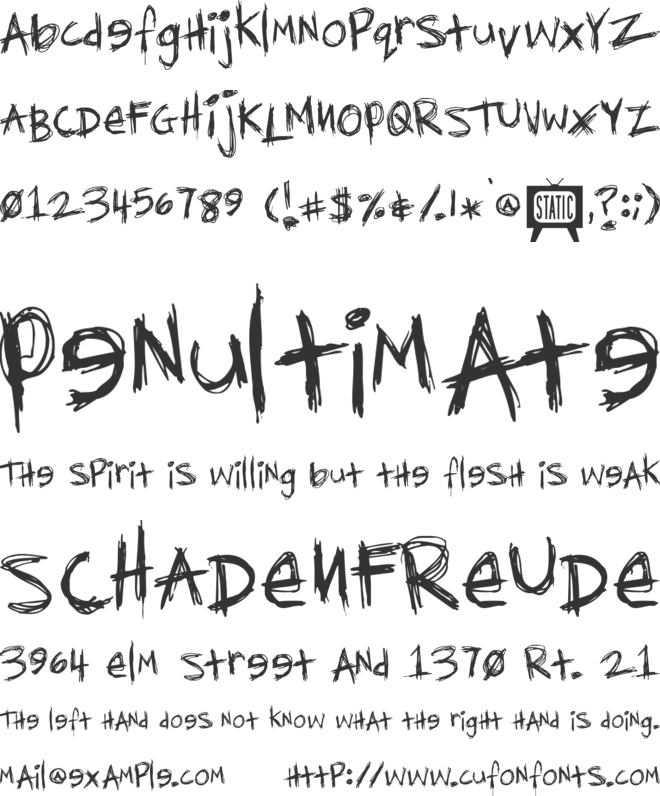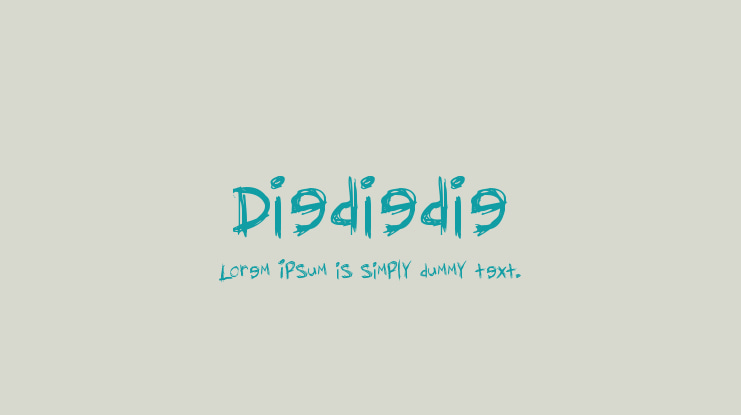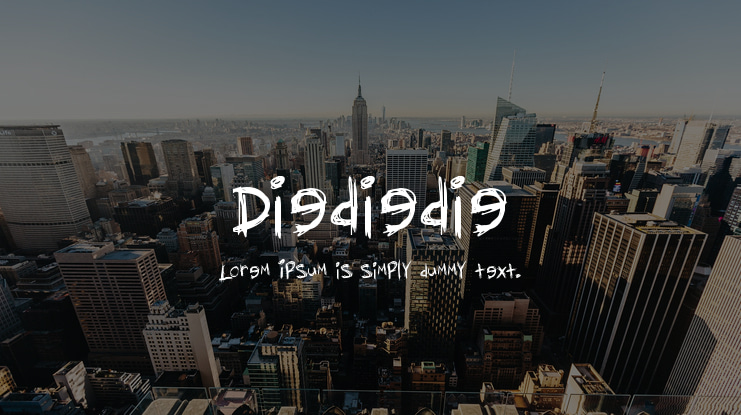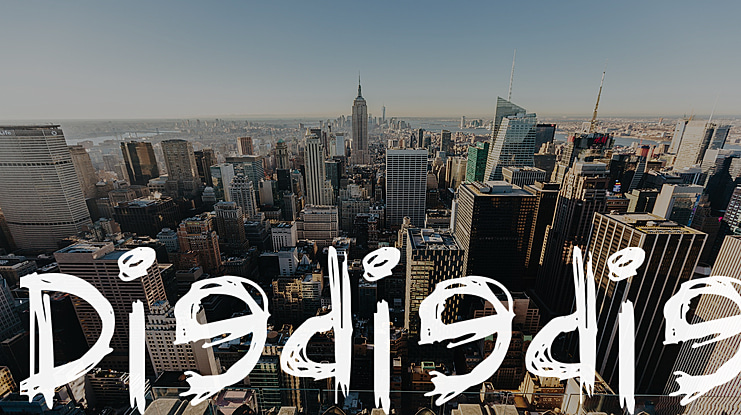
Diediedie Font
An evil, scribbled, obsessive font that definitely should not be trusted. Alt-0192 to alt-0211 contain some dingbats to liven up your death threats or whatnot.